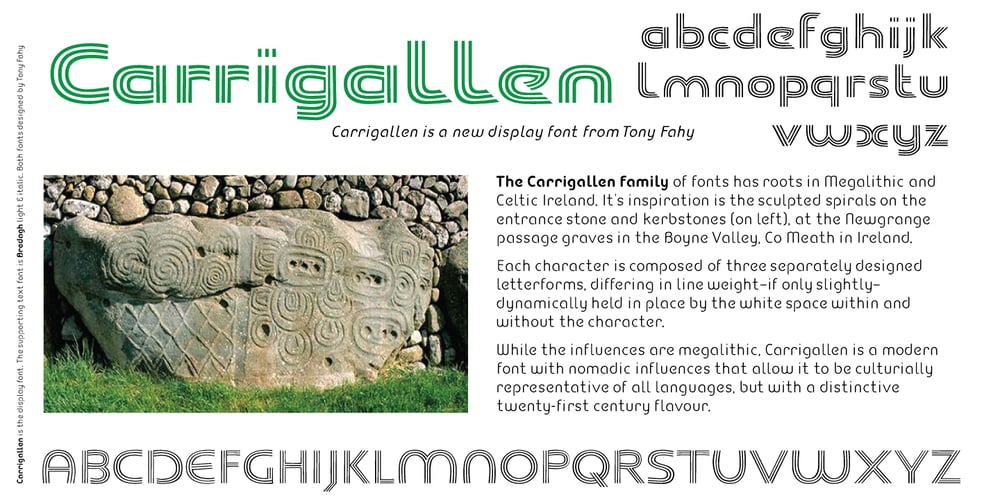
Carrigallen Display
Carrigallen Display font
Carrigallen Display Font Family was designed by Tony Fahy and published by Tony Fahy Font Foundry. Carrigallen Display contains 4 styles and family package options. The Carrigallen family of fonts has roots in Megalithic and Celtic Ireland. It has six weights—Light, Regular and Bold and their corresponding italics. The distinctiveness of the Carrigallen family, is in it’s sculpted, spiral nature, inspired by the graphics at the entrance stones and kerbstones at the Newgrange passage graves in Ireland. This is where it derives it’s decorative nature and suitability, as a very distinct Display font. Exceptionally suited for Logos and Headlines, it can increase the corporate presentation of a company as its main identifying feature—and with high memorability!The three separately designed letterforms—differing in line weight—are held in place by the white space within and without the character giving a distinctive twenty first century flavour! It is this dynamic that makes the font unique!Carrigallen Display is a modern font. It draws from its nomadic influences allowing it to be culturally representative of all languages.